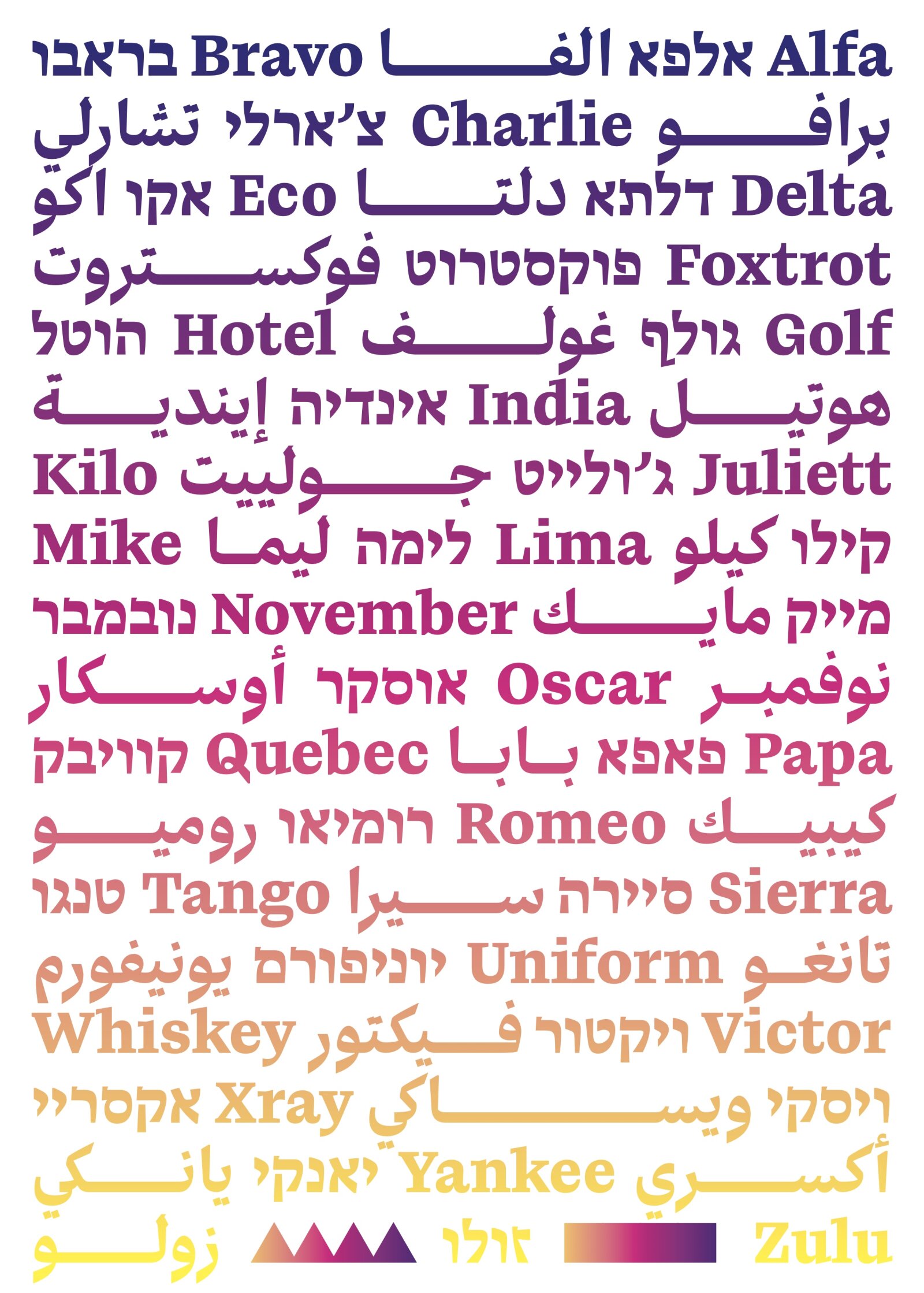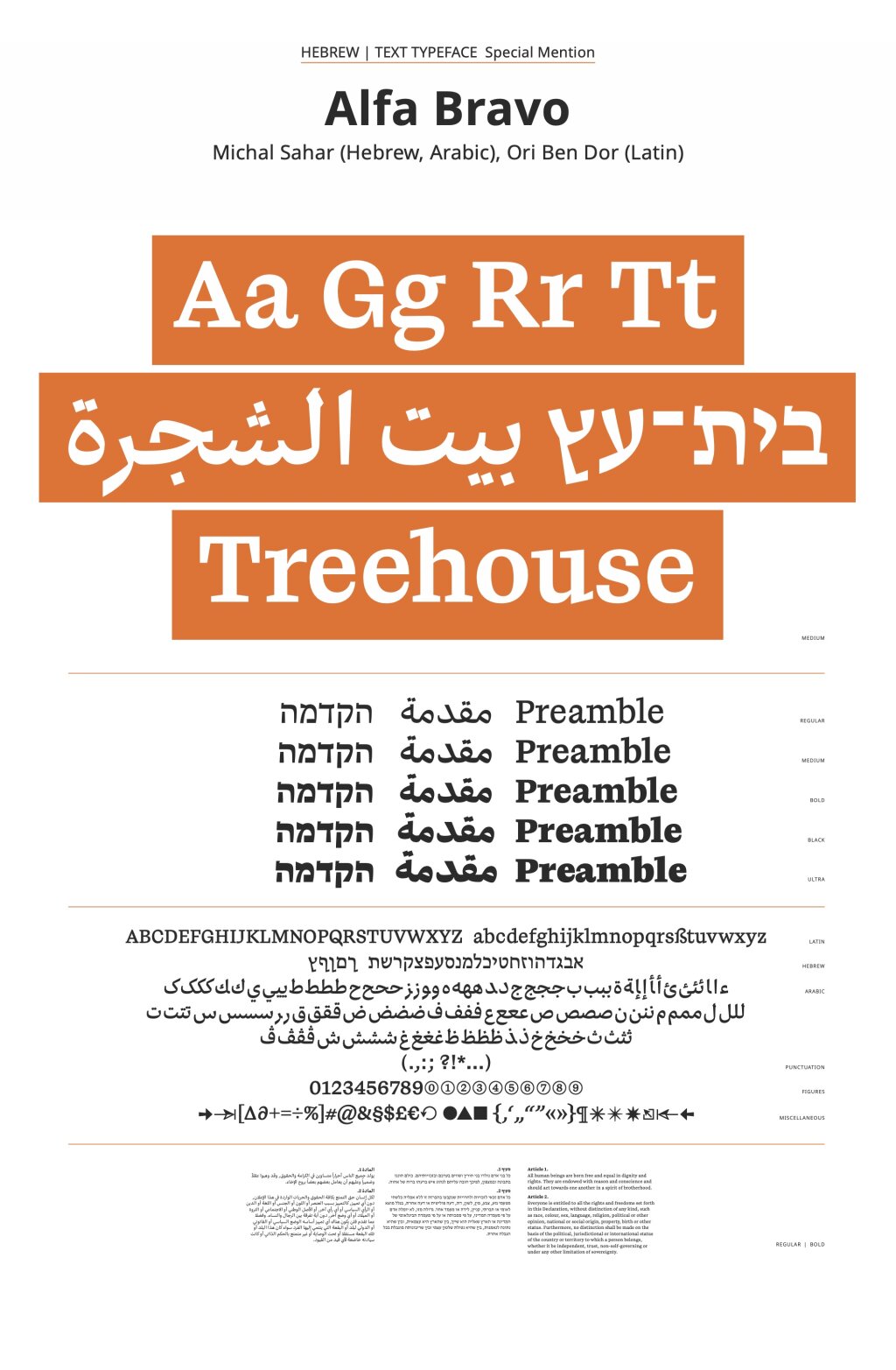
Alfa Bravo
by Michal Sahar
Hebrew
The original design approach and unexpected execution demonstrates an innovative thinking of Hebrew letterforms, pushing further the boundaries of current Hebrew type design. In order to highlight this notable aspect the typeface was reassigned to the Hebrew category, excluding the Arabic and Latin design.
Due to the jury’s decision, this typeface has been moved from the C1 Multiscript Text Typefaces to A1 Hebrew Typefaces Category.
A contemporary Serif type family for continuous text and display. Israel, a multi-cultural arena, requires trilingual typographic solutions. This endeavor is particularly challenging as it involves crafting cohesive type systems encompassing Latin, Hebrew, and Arabic, each with unique characteristics. Despite the inherent complexities, maintaining cultural authenticity while adhering to consistent design principles across all scripts is crucial. Over the last few years, I have explored cursive letterforms as a secondary style within one Hebrew typeface (the notion of Italic is foreign to Hebrew). I aim to design type systems that pioneer the use of cursive styles and give Hebrew typographers the same possibilities as Western typographers have. Here, for the first time, an innovative approach emerged by developing a unique Arabic sub-style: drawing inspiration from traditional Ruqaa calligraphy, this style was meticulously selected for its distinctive visual qualities.